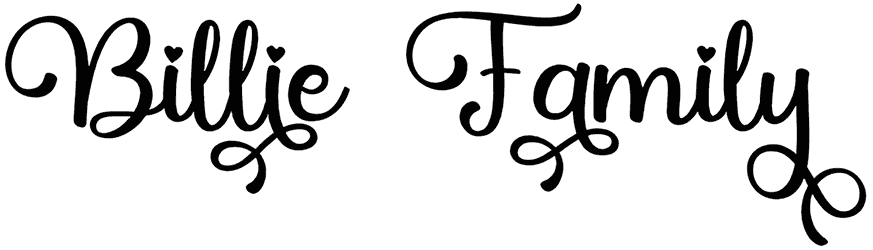
Billie Family Font
Billie Family, a swirly font, can be used to add a unique and pleasing visual flair to your digital creations, making them more enjoyable to look at and use.
The appearance of hand-drawn effects is achieved with this script font, making it ideal for usage in advertising, posters, and even fashion creations. Anyone looking to inject some naturalism into their next project will find the best options available on the RB script font store.